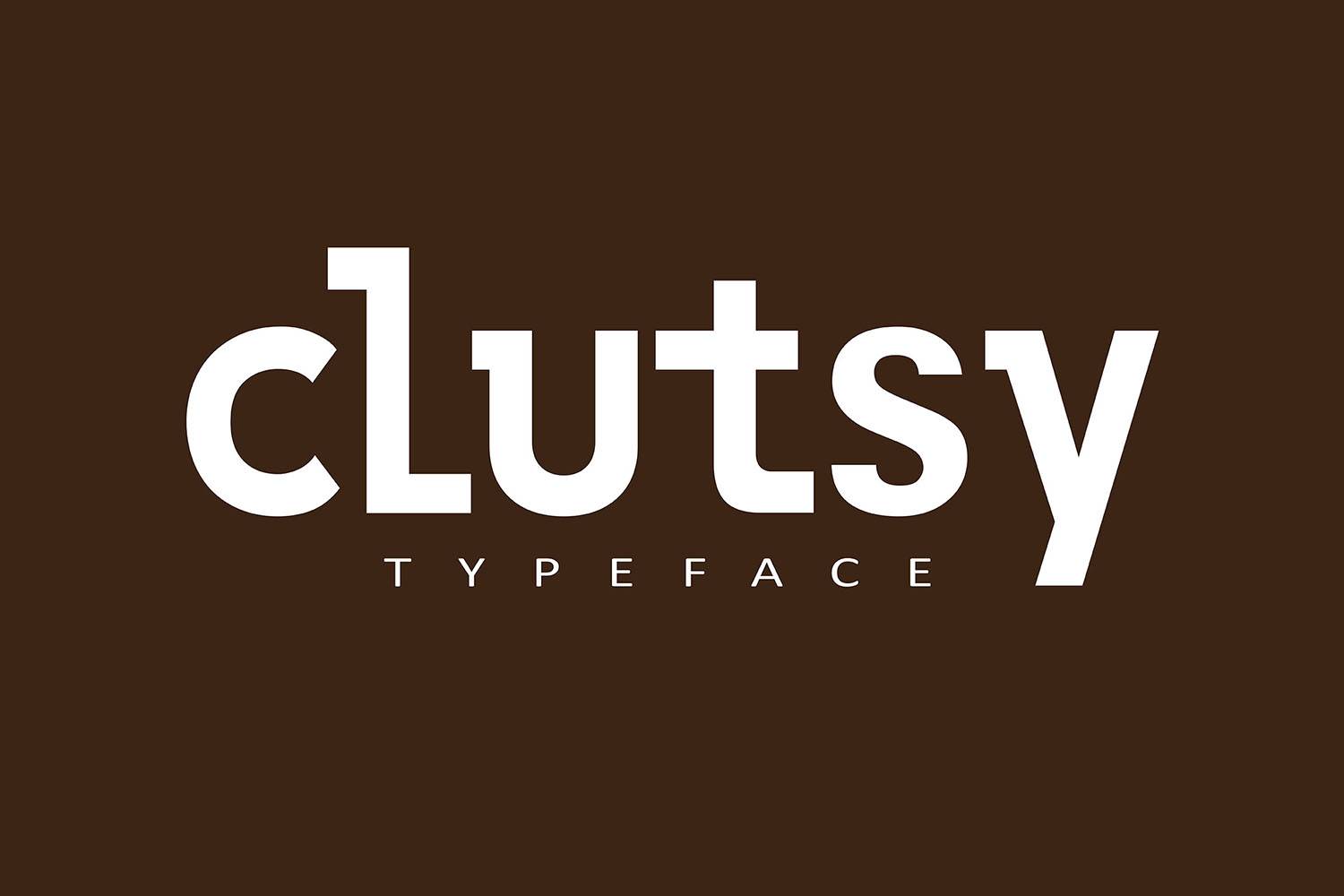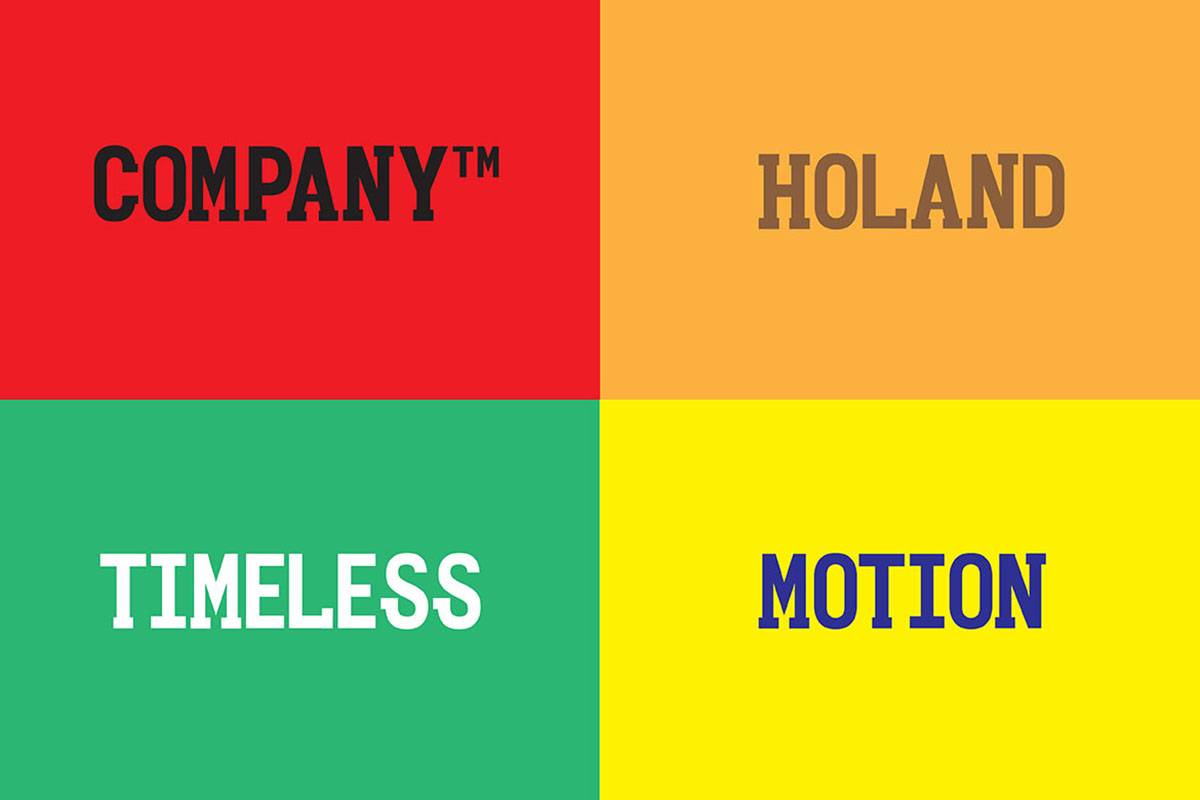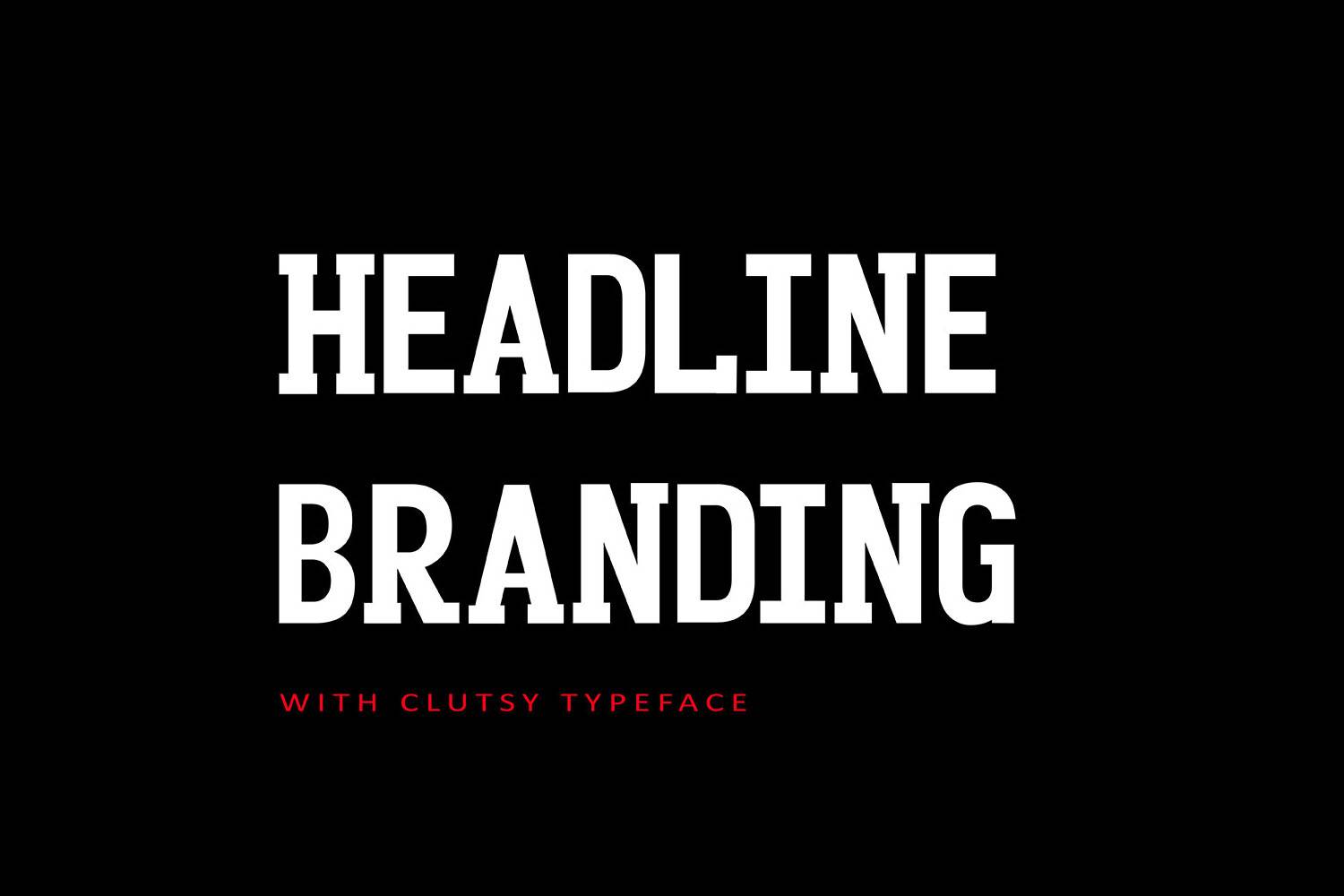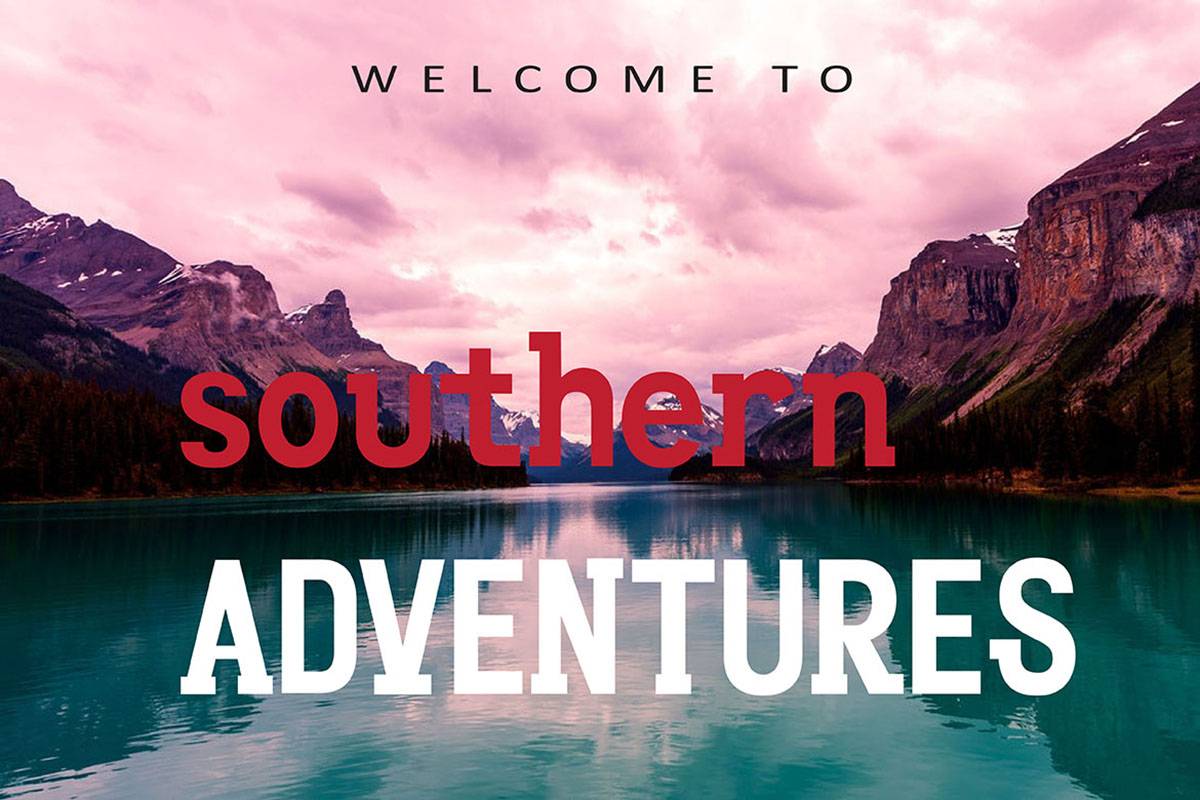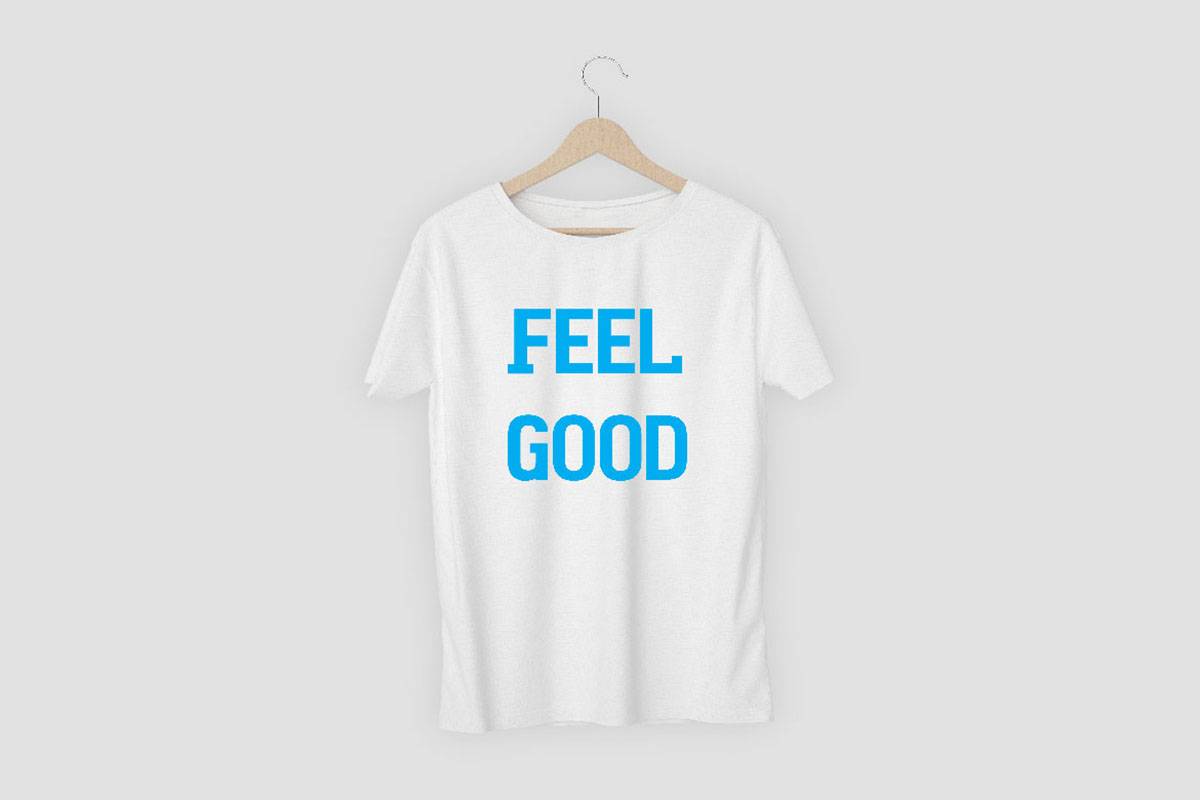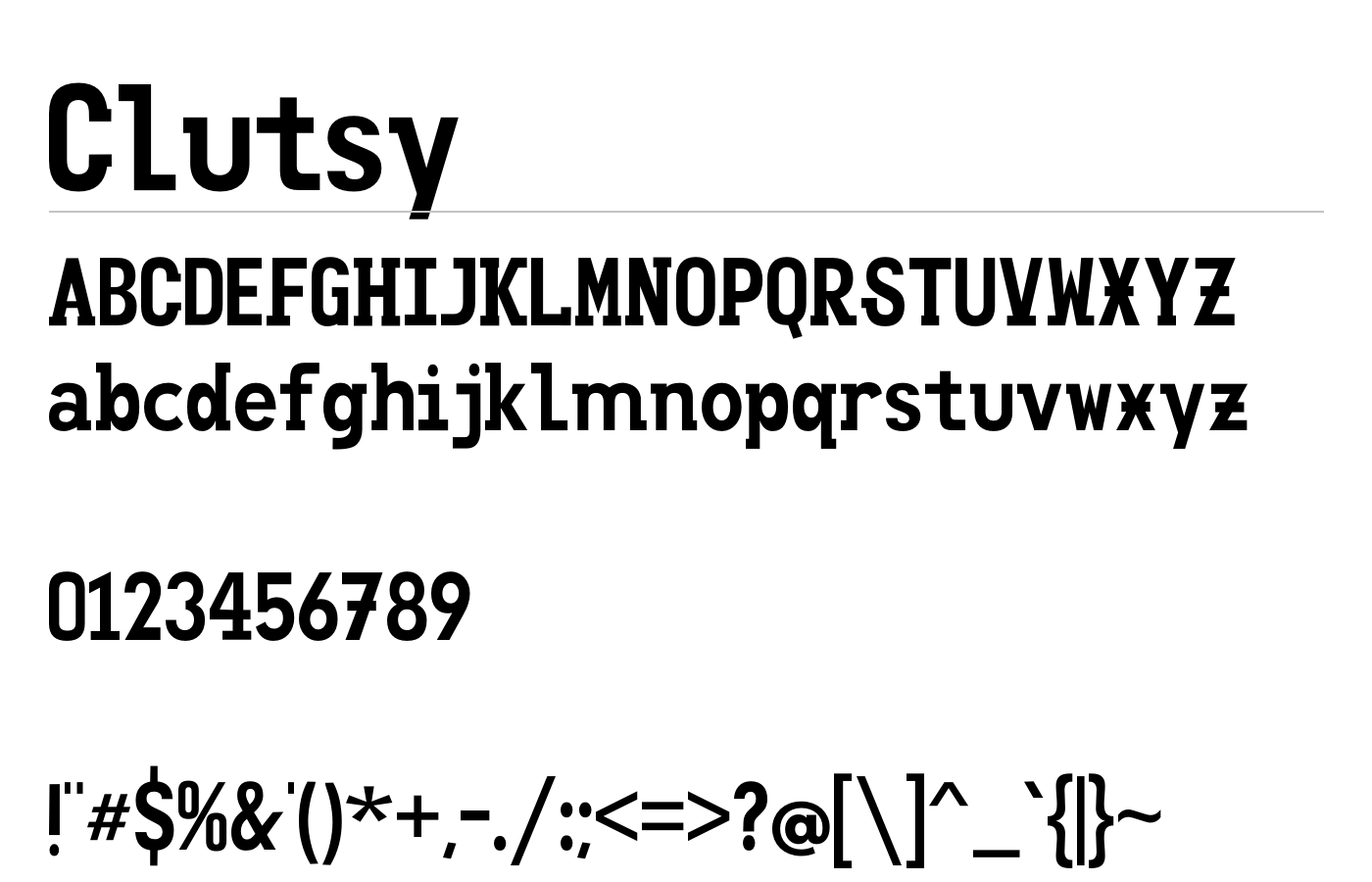
Clutsy is a bold, condensed slab serif font with a sturdy and practical appearance. Its thick, block-like serifs and high contrast stroke details give it a strong, vintage-inspired feel, making it ideal for impactful headlines, logos, and branding where a confident, no-nonsense style is desired. This font works well for projects that need a distinctive, approachable tone with a touch of retro charm.
Clutsy Font
About Clutsy Font
| Font family | Clutsy Font |
| Release date | 2019-02-19 |
| Designer | aminmario |